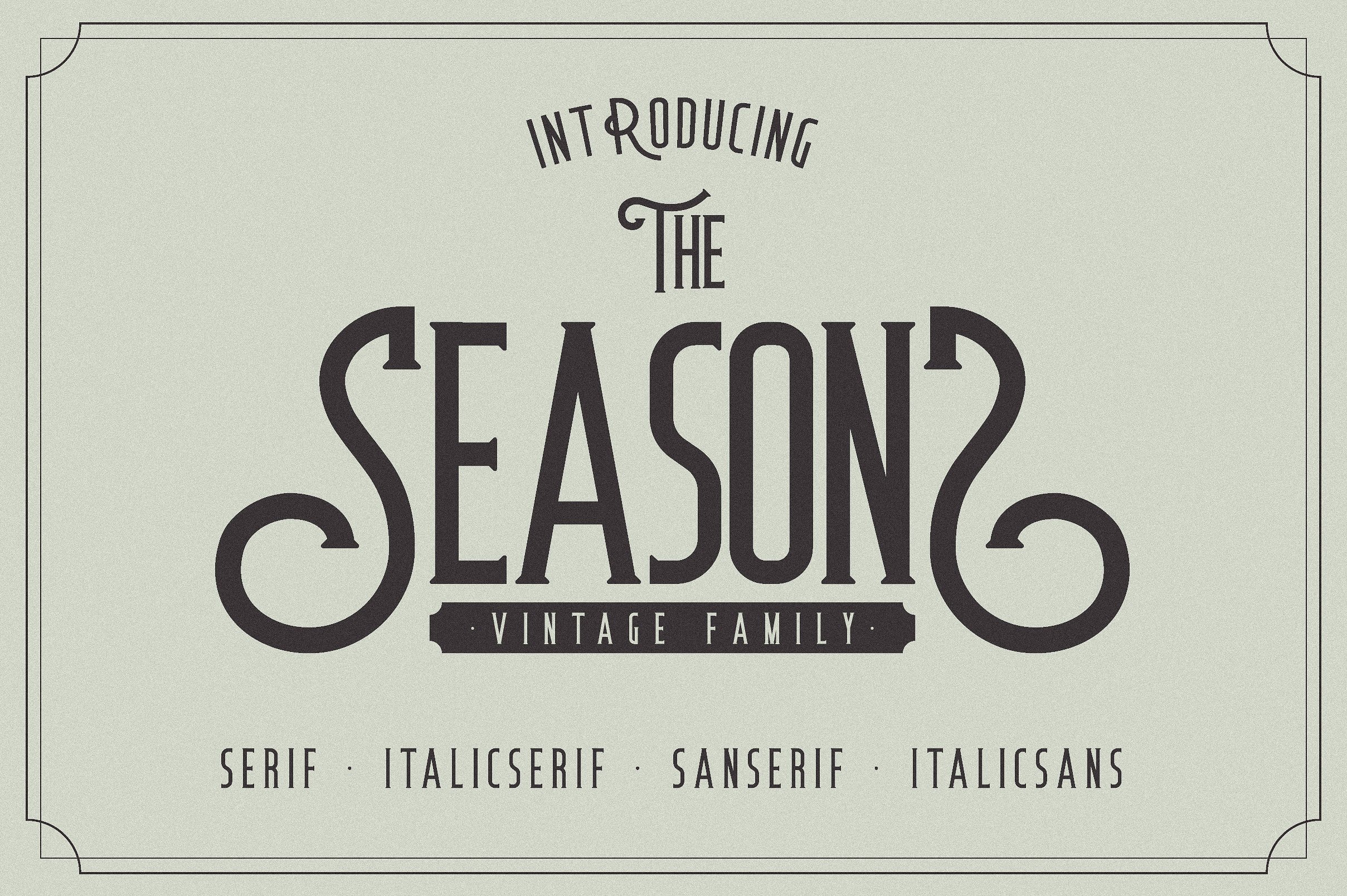
The Seasons Font
The Seasons is a font inspired by the fonts at the end of 1800. The theme of vintage, classic and retro. This font is suitable for the needs of design vintage posters, vintage logo, logogram, and others.